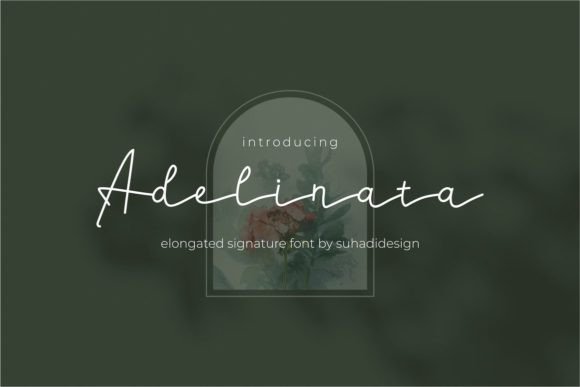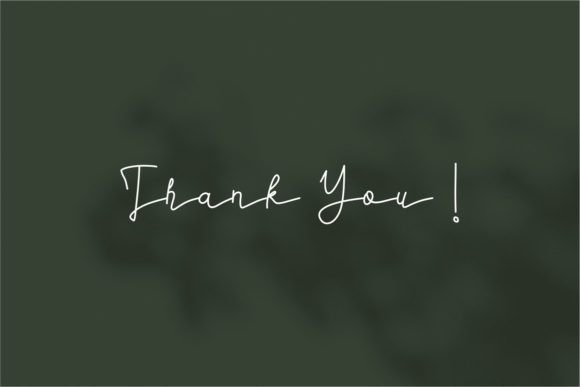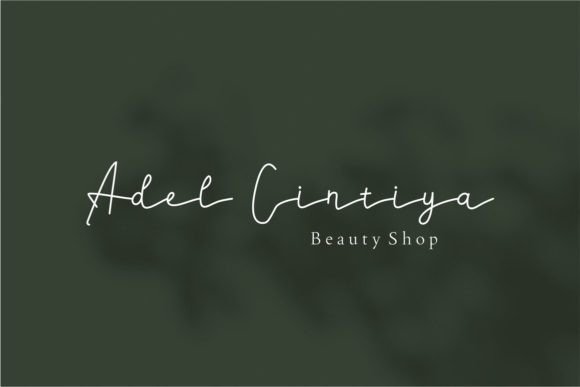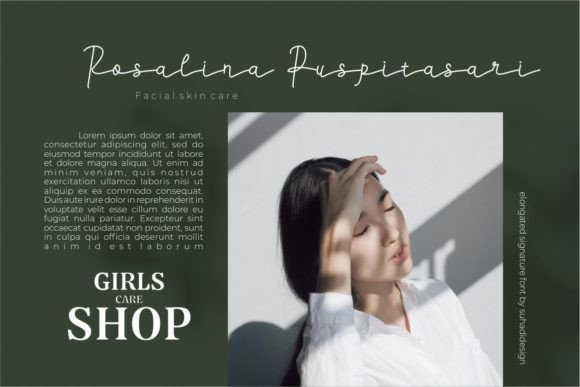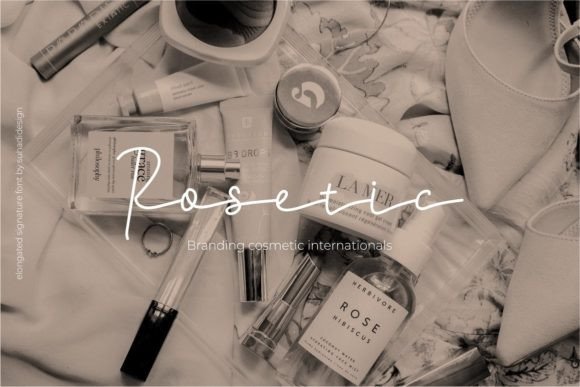
About Adelinata Font
“Adelinata” is a font that exudes style and elegance, characterized by its elongated and graceful script. Tailored specifically for luxury, elegant, and feminine projects, this font is the epitome of sophistication and modern chic. Its sleek design and carefully crafted characters make it perfectly suitable for creating high-end and refined designs that leave a lasting impression.
The elongated and stylish nature of “Adelinata” lends itself well to luxury projects. Whether used in branding for high-end products, upscale services, or exclusive events, this font adds a touch of opulence and class. Its elegant script creates a sense of refinement, making it ideal for luxury fashion brands, beauty products, jewelry, and other premium offerings.
In elegant projects, “Adelinata” becomes a key design element that enhances the overall aesthetics. Whether you’re designing invitations for formal events, upscale restaurant menus, or boutique hotel branding, this font elevates the visual appeal. Its elongated and fluid characters add a sense of sophistication, creating a luxurious atmosphere that resonates with discerning audiences.
For feminine projects, “Adelinata” embodies grace and beauty. Its elegant script is perfect for women-centric branding, beauty products, cosmetics, fashion magazines, and lifestyle blogs. The font’s delicate curves and stylish flourishes enhance the feminine charm, making it a favored choice for projects targeting a female audience.
The modern and chic design of “Adelinata” makes it versatile for various contemporary applications. Whether you’re creating website headers, social media graphics, advertising materials, or editorial layouts, this font brings a sense of sophistication to your designs. Its elongated characters and elegant flow create a harmonious balance between modern aesthetics and timeless elegance.
In summary, “Adelinata” is more than just a font; it’s a statement of luxury and refinement. Its stylish and elegant elongated script is tailor-made for projects that demand sophistication and modern chic. By incorporating “Adelinata” into your designs, you infuse them with a touch of opulence, ensuring that your creations are visually stunning and captivating to the most discerning audiences.